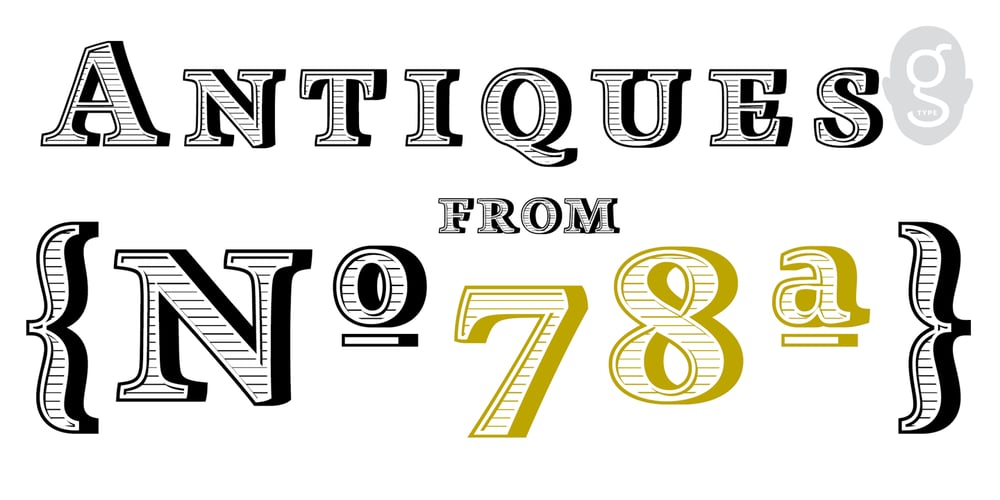
Sovereign Display
Sovereign Display font
Sovereign Display Font Family was designed by Nick Cooke and published by G-Type. Sovereign Display contains 1 styles and family package options. Sovereign Display is a decorative all caps headline face in one style with small caps on the lower case positions. Thin horizontal crossrules underpinned by a heavier solid shadow give the typeface a prominent three dimensional appearance and an air of formal distinction. Ornate and iconic, Sovereign Display is perfect for certificates, manuscripts, titling or anything requiring a more sombre, elaborate or engraved slab serif style.